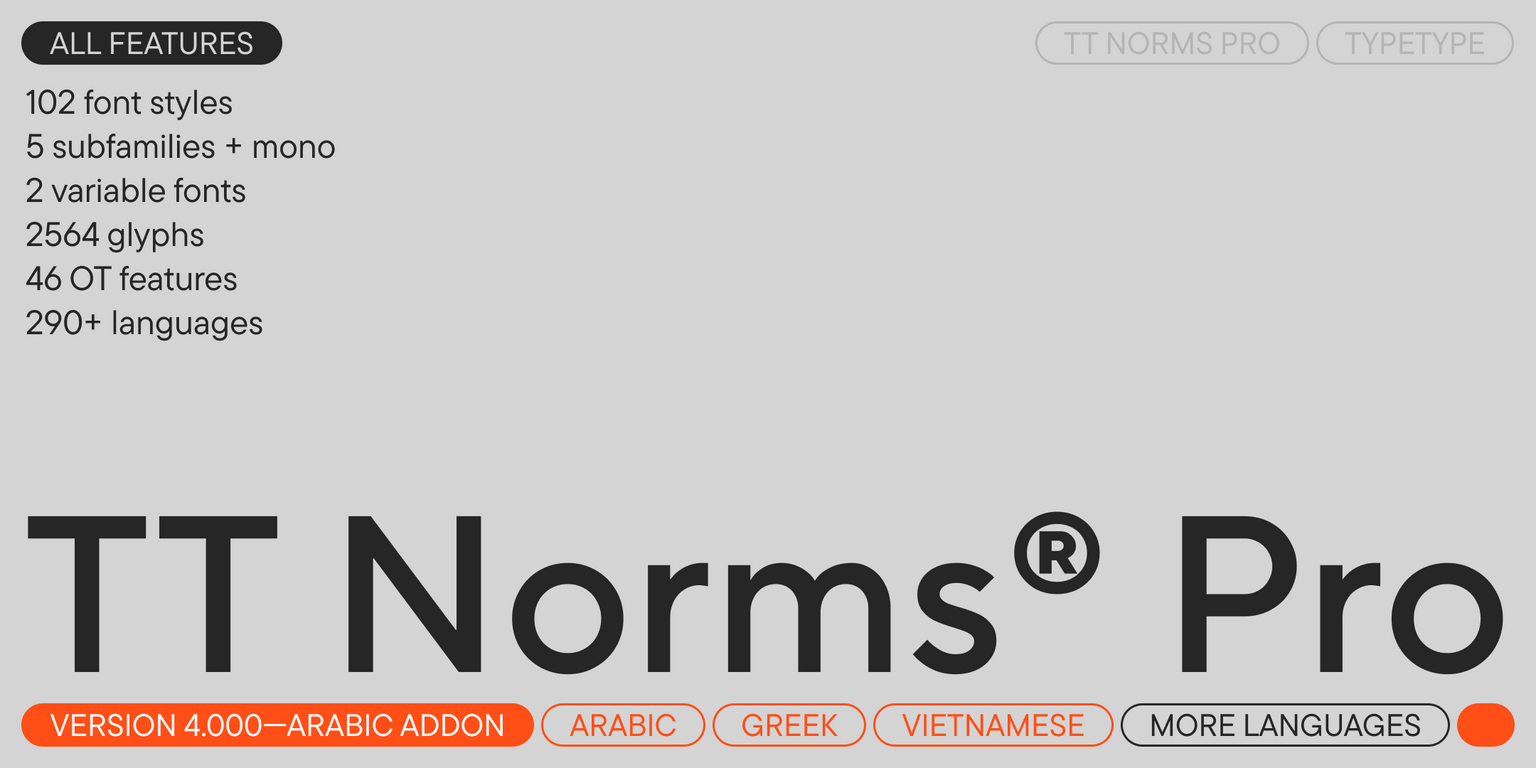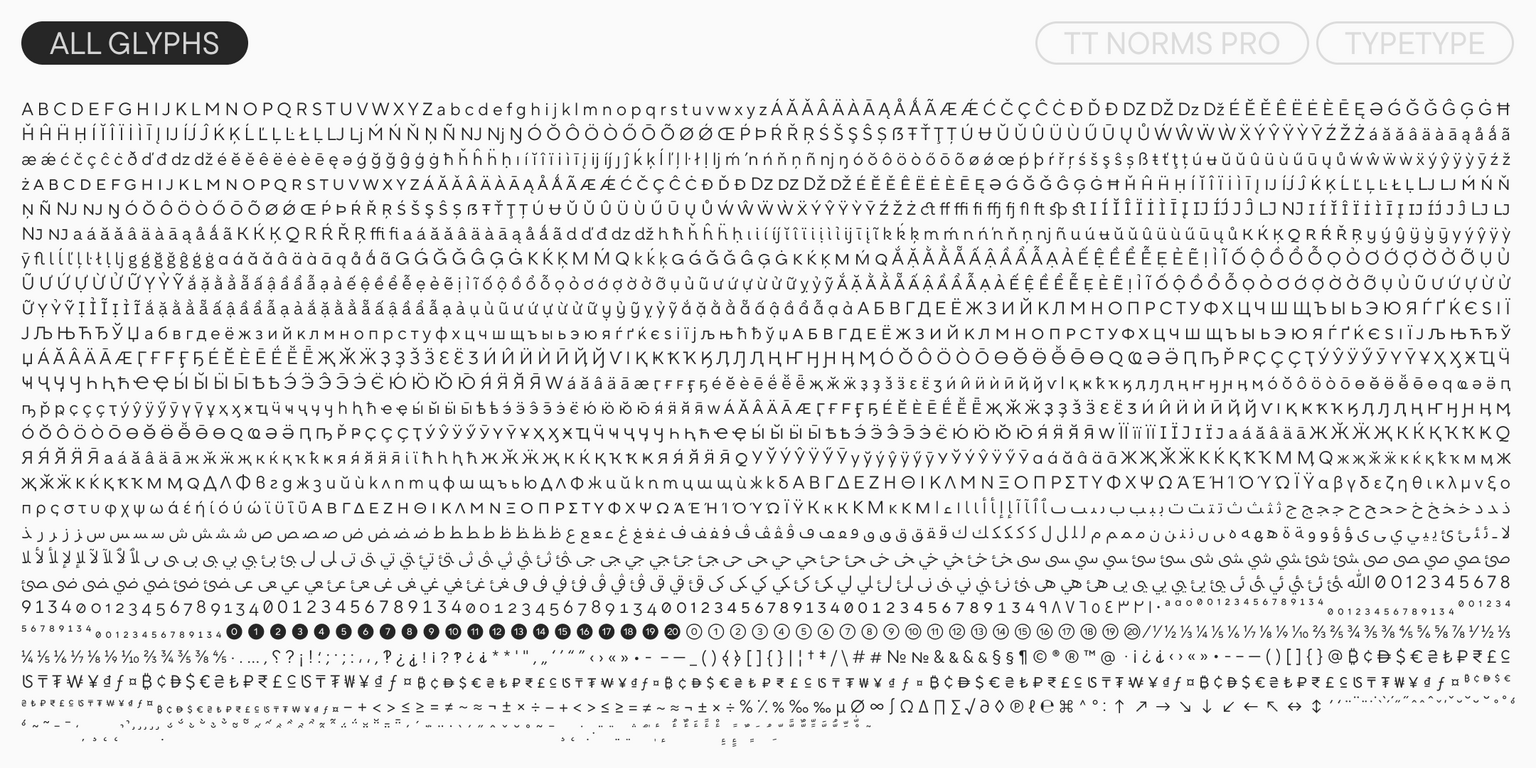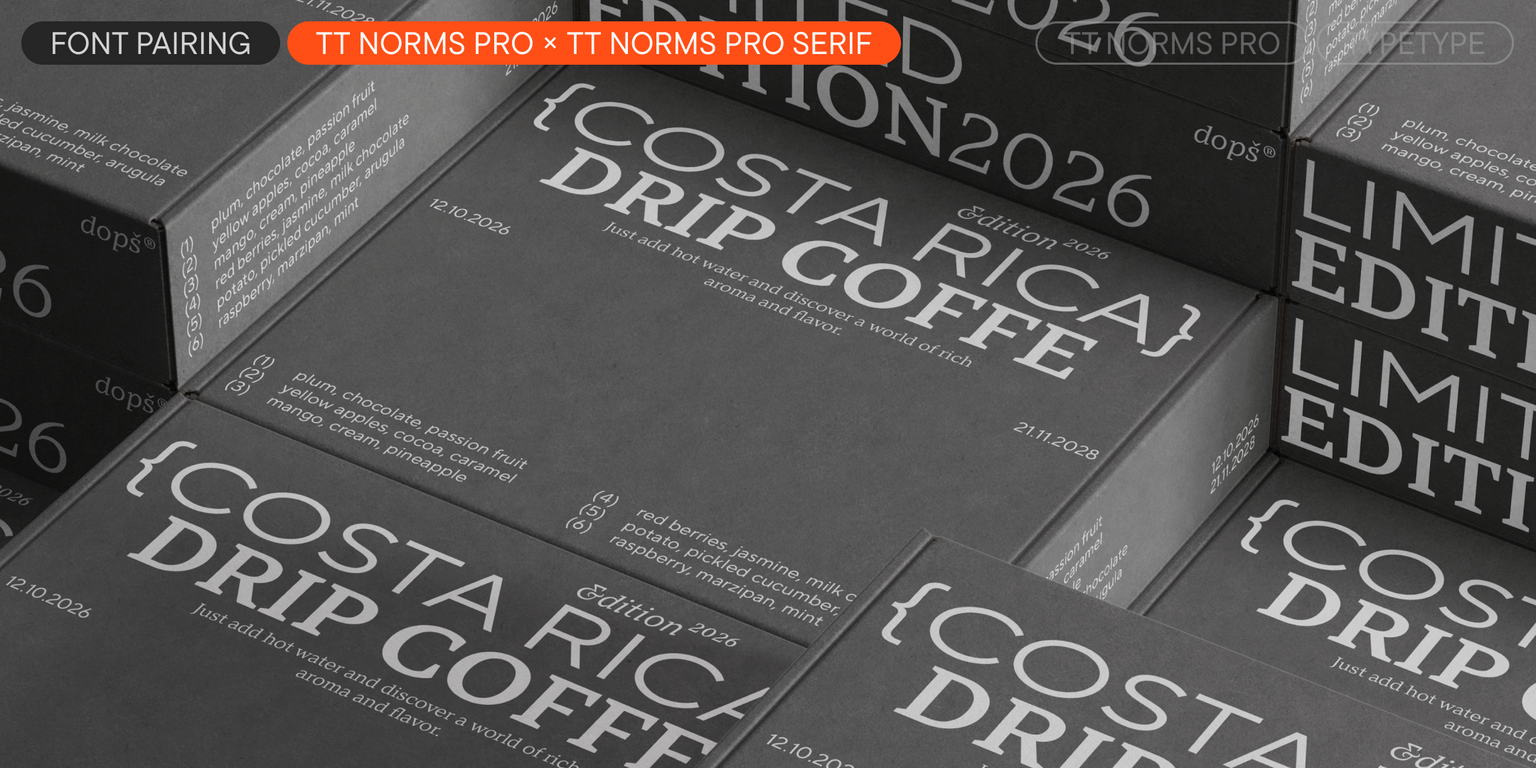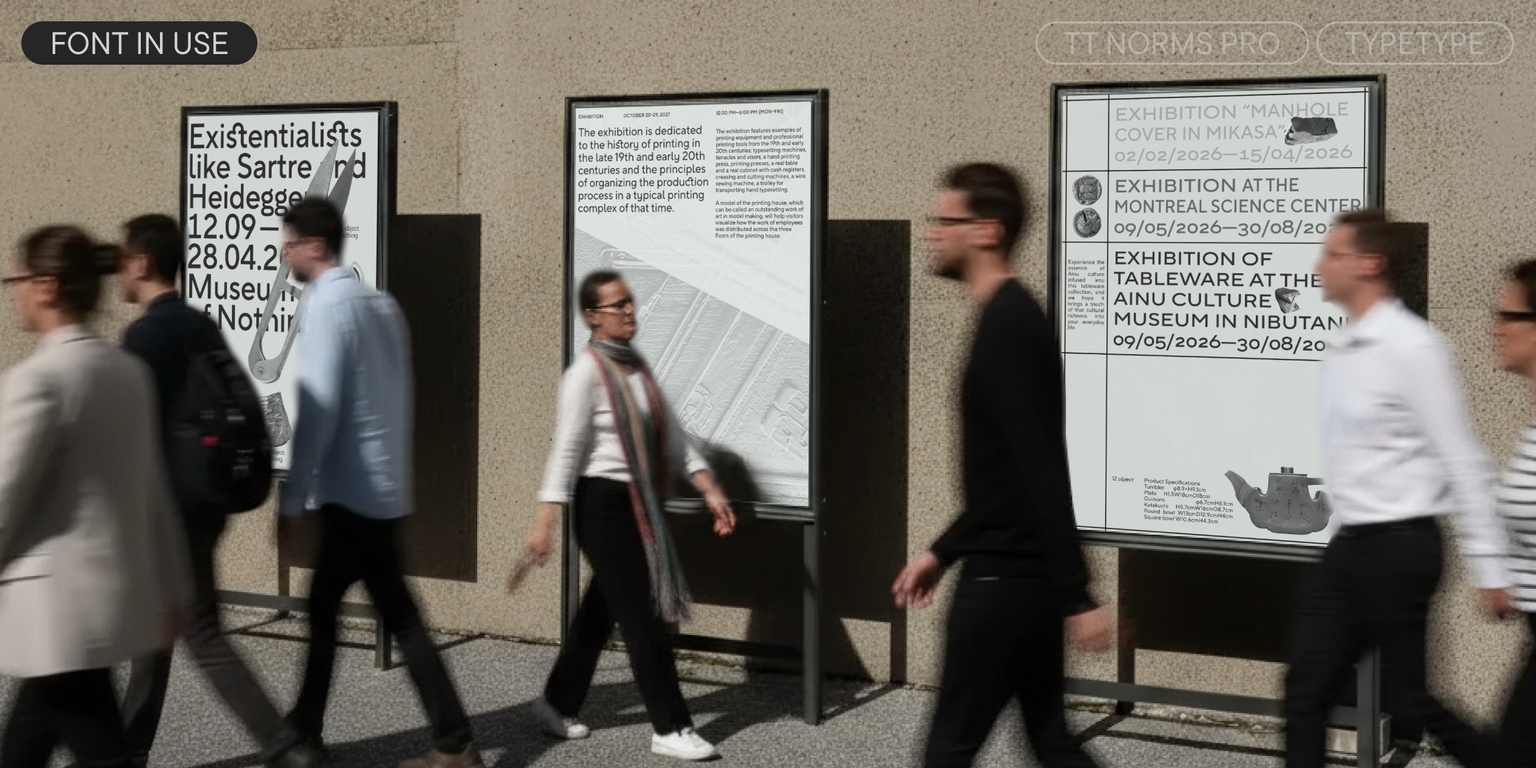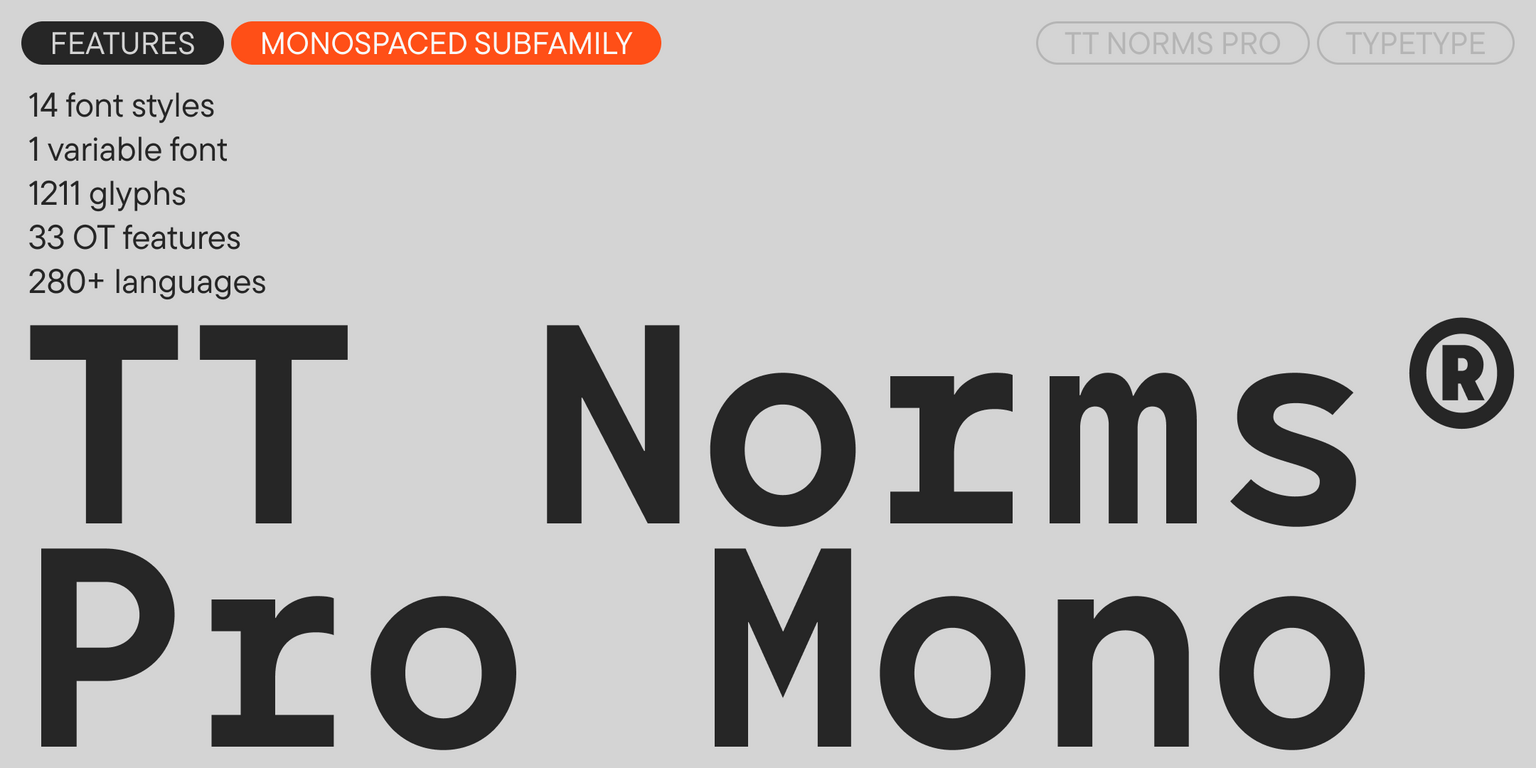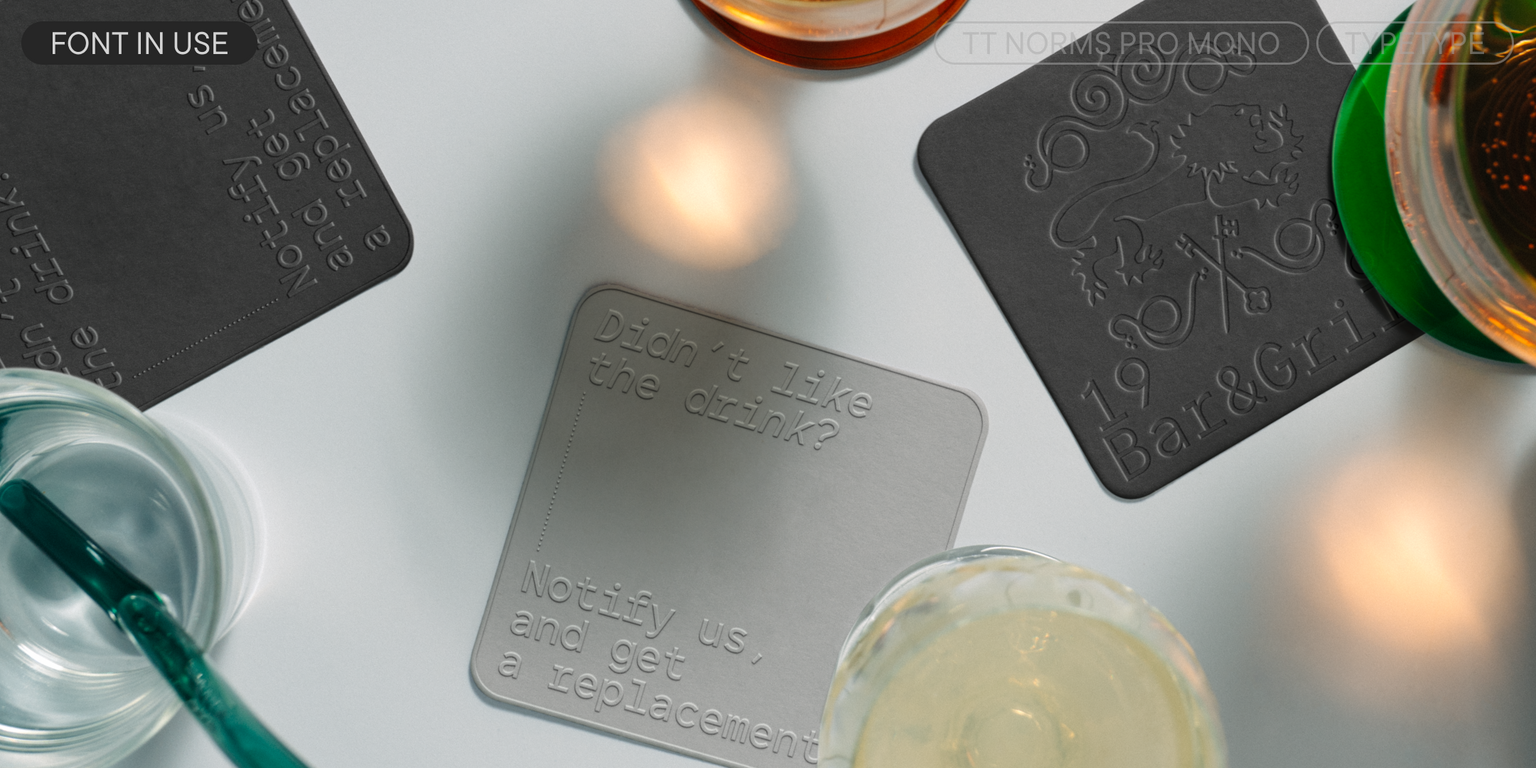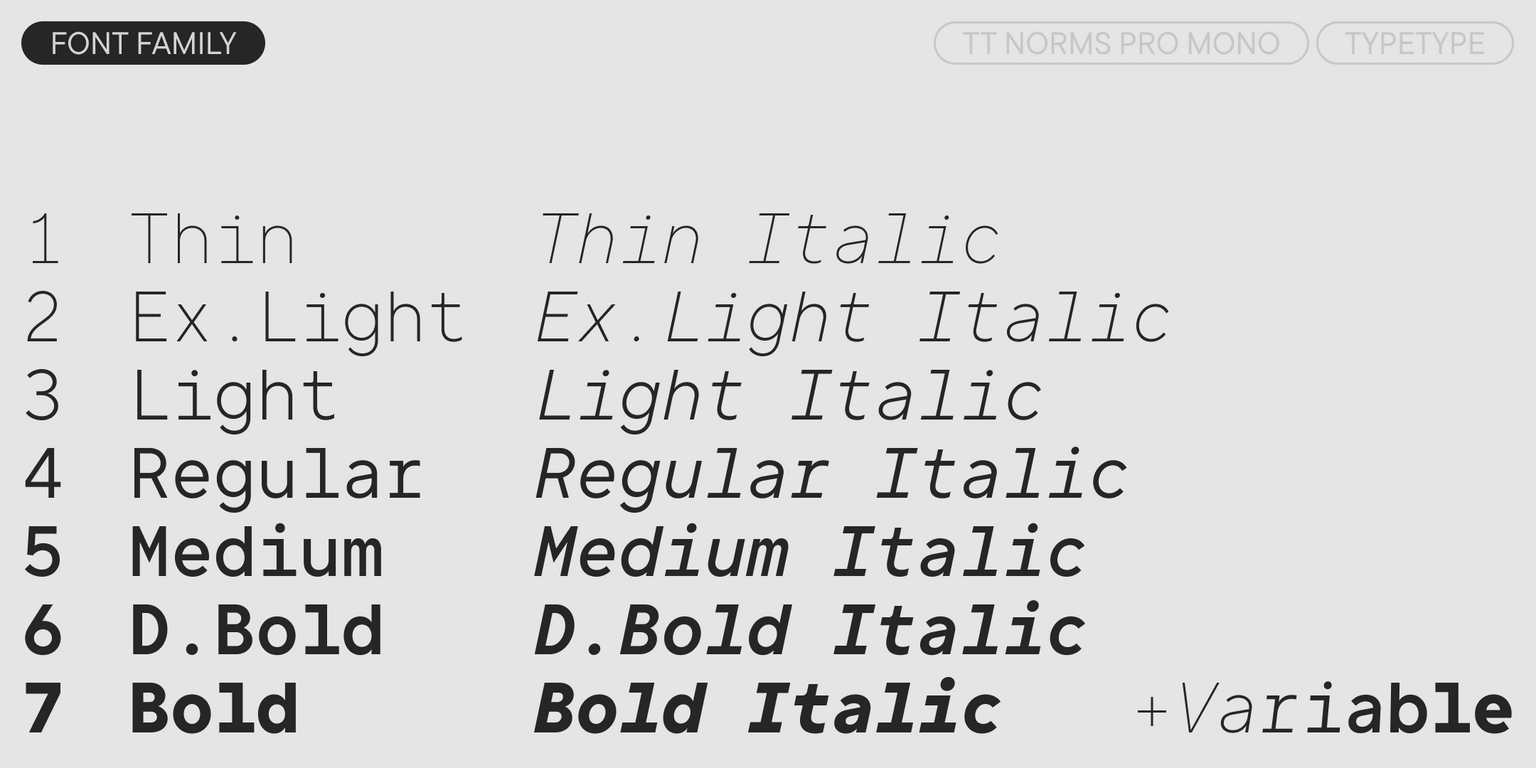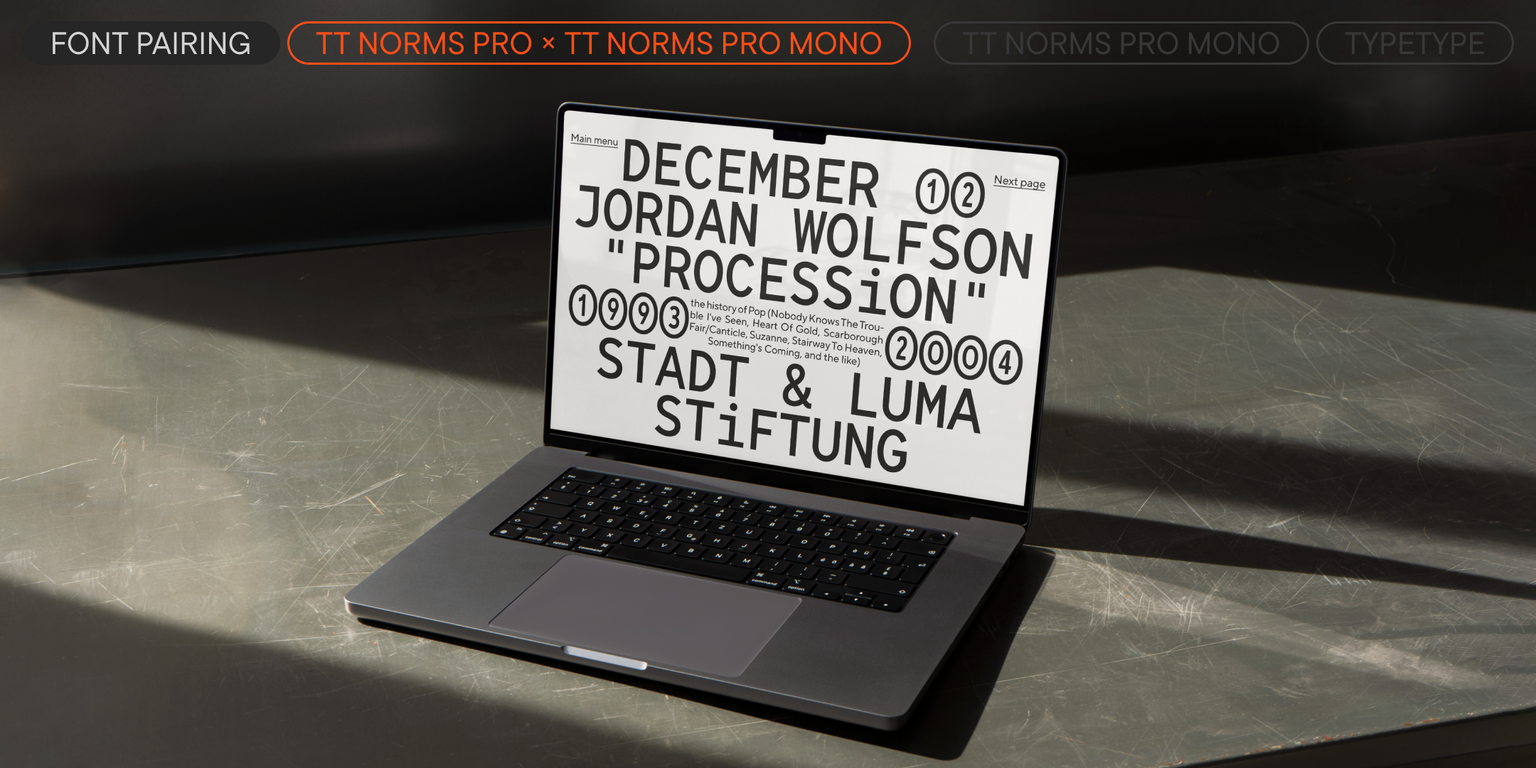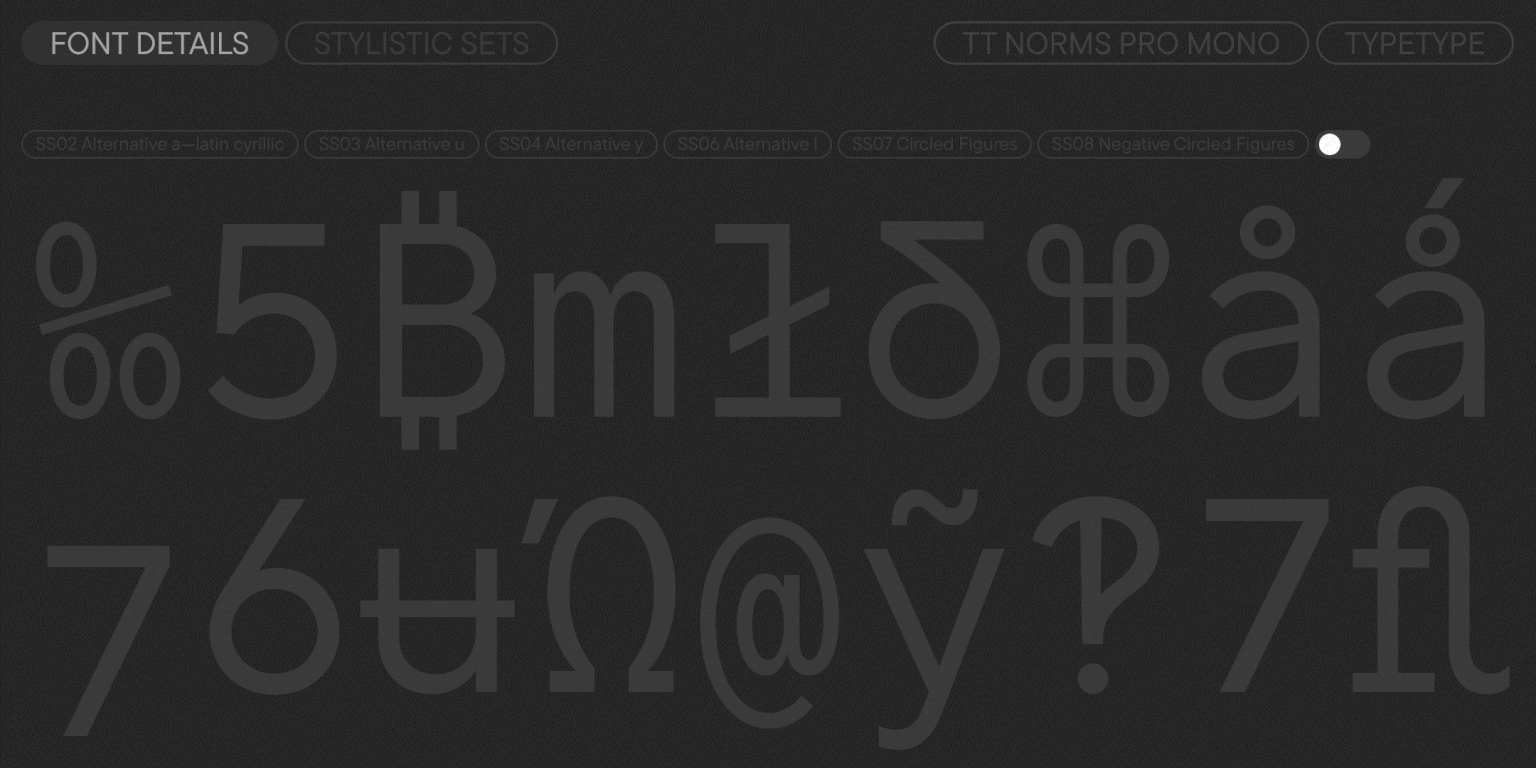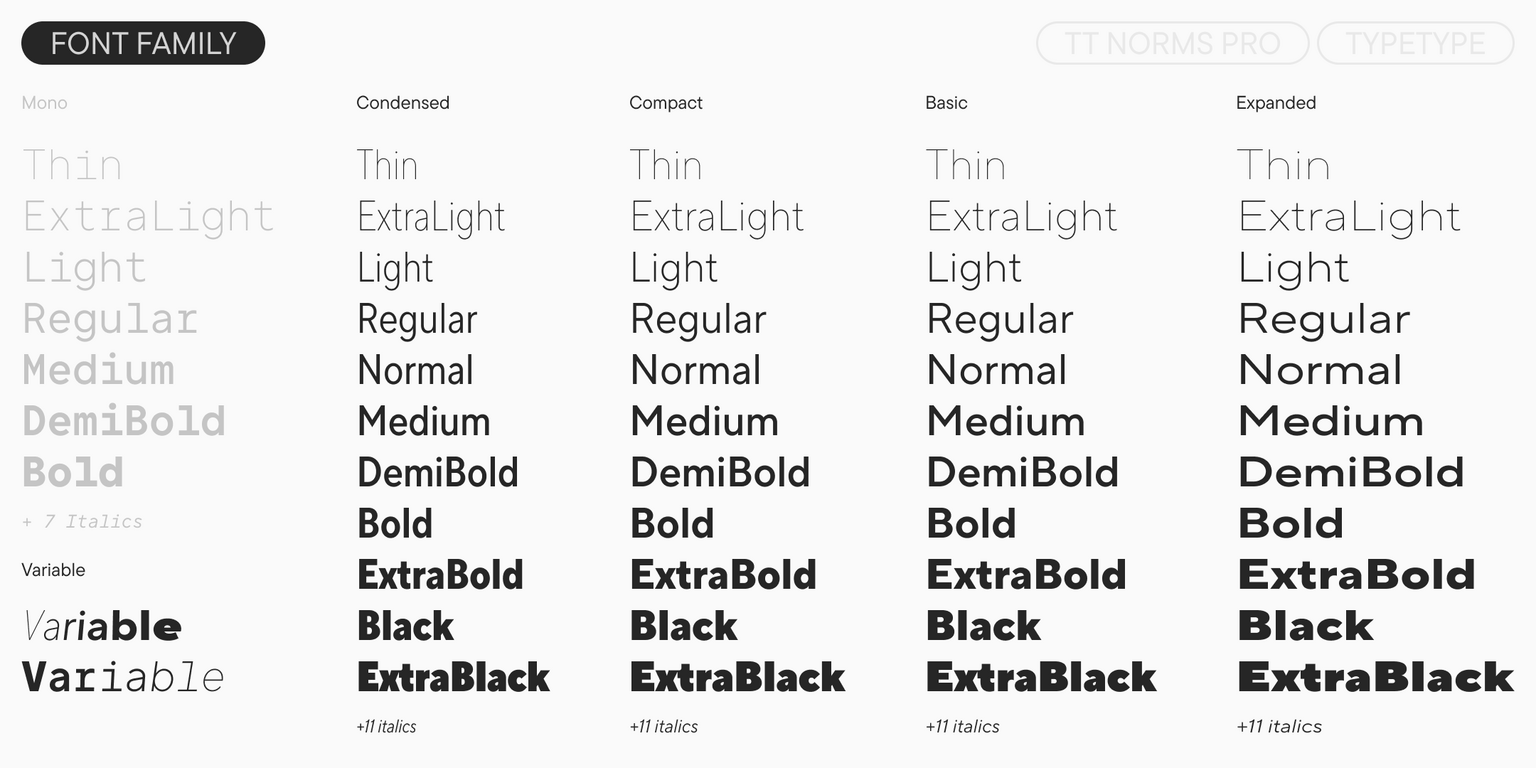
TT Norms® Pro
TT Norms® Pro is a functional geometric sans serif font for refined design solutions. Explore the studio’s flagship typeface, selected by leading global brands, and try or download the complete TT Norms® Pro font family.